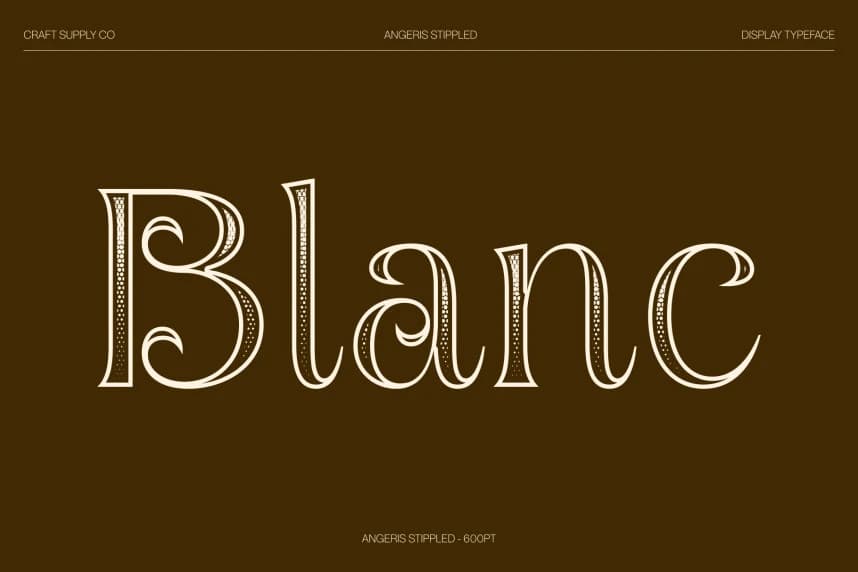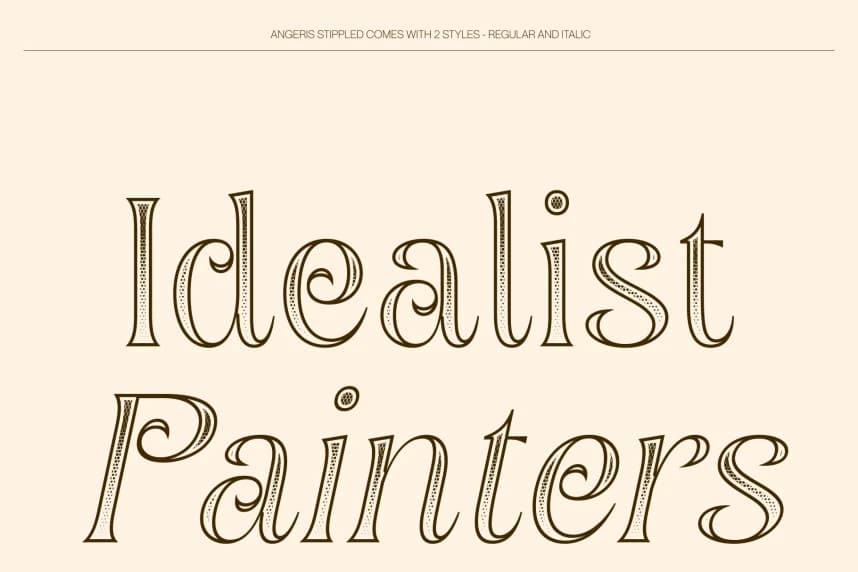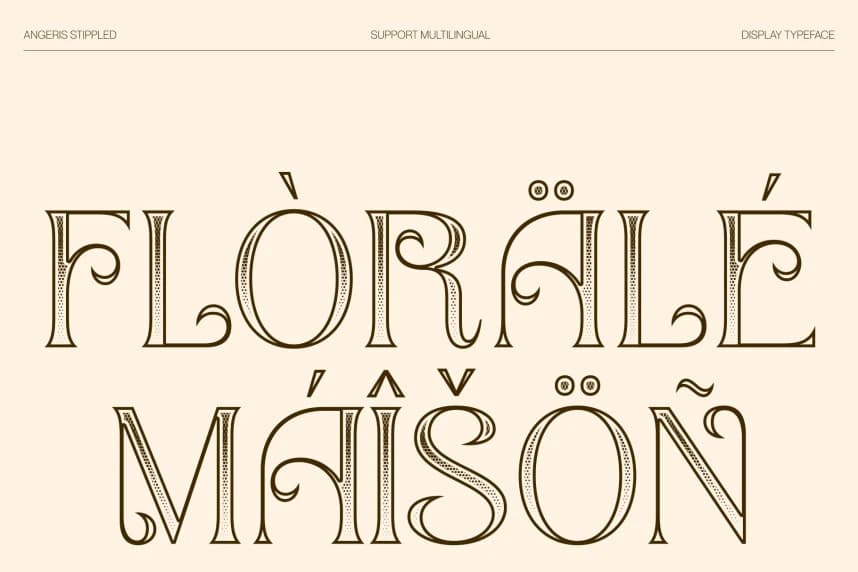
Angeris Stippled Font
Angeris Stippled Font – A Nod to Retro Elegance Retro Art Nouveau with Stippled Sophistication. This draws inspiration from the iconic Art Nouveau movement, infused with a retro charm that evokes timeless nostalgia.